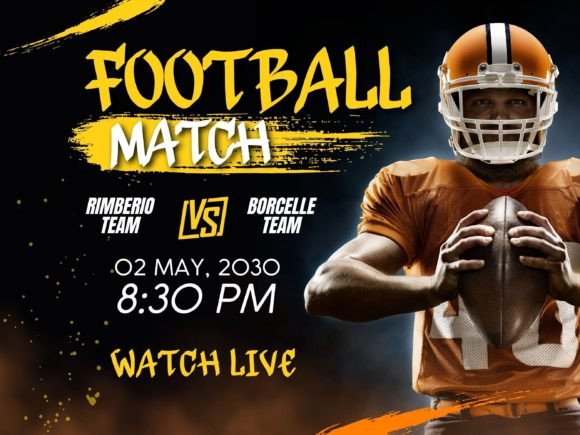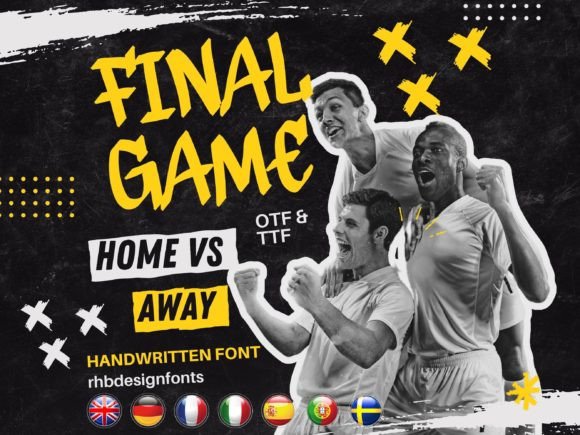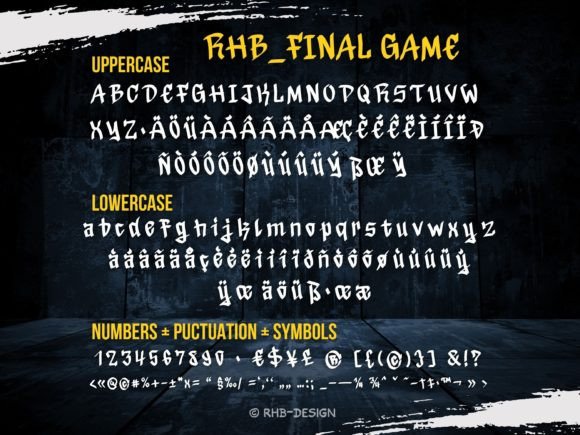
Introduction to Rhb Final Game Font
Have you ever stared at a blank canvas, feeling the creative juices flow through your veins as you envision the perfect design? It’s that moment of pure inspiration that makes all the difference in bringing your ideas to life. And when it comes to crafting a visual masterpiece, the right font can make all the difference.
Enter the Rhb Final Game Font, a beautifully crafted, modern script that’s sure to elevate your designs to new heights. With its playful personality and smooth compatibility with various design tools, this font is the ultimate design resource for creatives. Whether you’re working on a high-quality logo, a creative project, or simply looking for a unique touch to add some personality to your designs, the Rhb Final Game Font is an indulgent choice that’s sure to impress.
Key Features of Rhb Final Game Font
- Unique characteristics: bold, modern, and futuristic design elements, making it perfect for sci-fi and futuristic-themed projects.
Honest Review: Rhb Final Game Font
I recently had the chance to work with the Rhb Final Game Font, and I must say it’s been an interesting experience. The font itself is quite unique and has a lot of character, which is perfect for any creative project that needs a touch of edginess.
One of the things that stands out about this font is its high quality design. The transparent background allows for seamless integration with any design element, making it a valuable design resource. I also appreciate that it’s a free download, which is always a bonus.
Here are some things that work well with the Rhb Final Game Font:
- Unique and creative design
- May not be suitable for all types of projects
- Some users may find the design too bold or overwhelming
- Not as versatile as some other fonts
Overall, I think the Rhb Final Game Font is a solid choice for any creative project that needs a bold and eye-catching font. While it may not be perfect for everyone, it’s definitely worth considering.
How to Use Rhb Final Game Font
Rhb Final Game Font is a high-quality design resource perfect for creative projects that require a touch of gaming style. With its transparent background, this font is versatile and easy to use in various applications.
To get the most out of Rhb Final Game Font, use it in combination with other design elements that match its gaming style. Experiment with different colors and backgrounds to create a unique look.
Rhb Final Game Font is perfect for:
Video game-themed designs: Use this font to create eye-catching posters, logos, and other designs for your favorite video games.
Gaming community projects: Share your love for gaming with Rhb Final Game Font and create engaging designs for your gaming community.